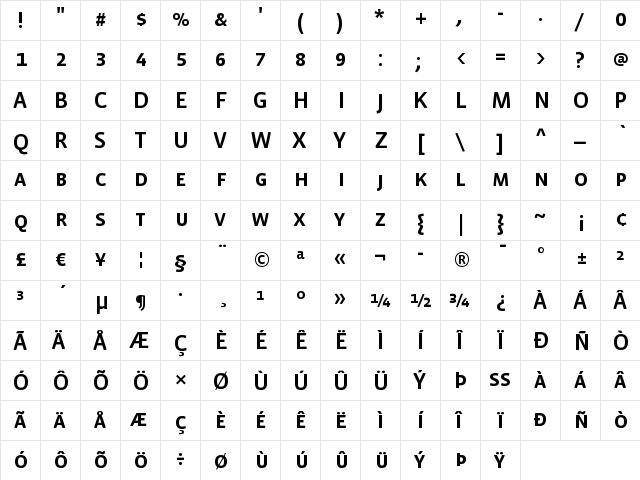
VistaSansSCMed Regular
| Foundry | Xavier Dupre |
| Designer | Xavier Dupre |
Design Context for VistaSansSCMed Typeface
VistaSansSCMed is a composed and adaptable typeface that performs quietly and consistently across a wide range of design contexts.